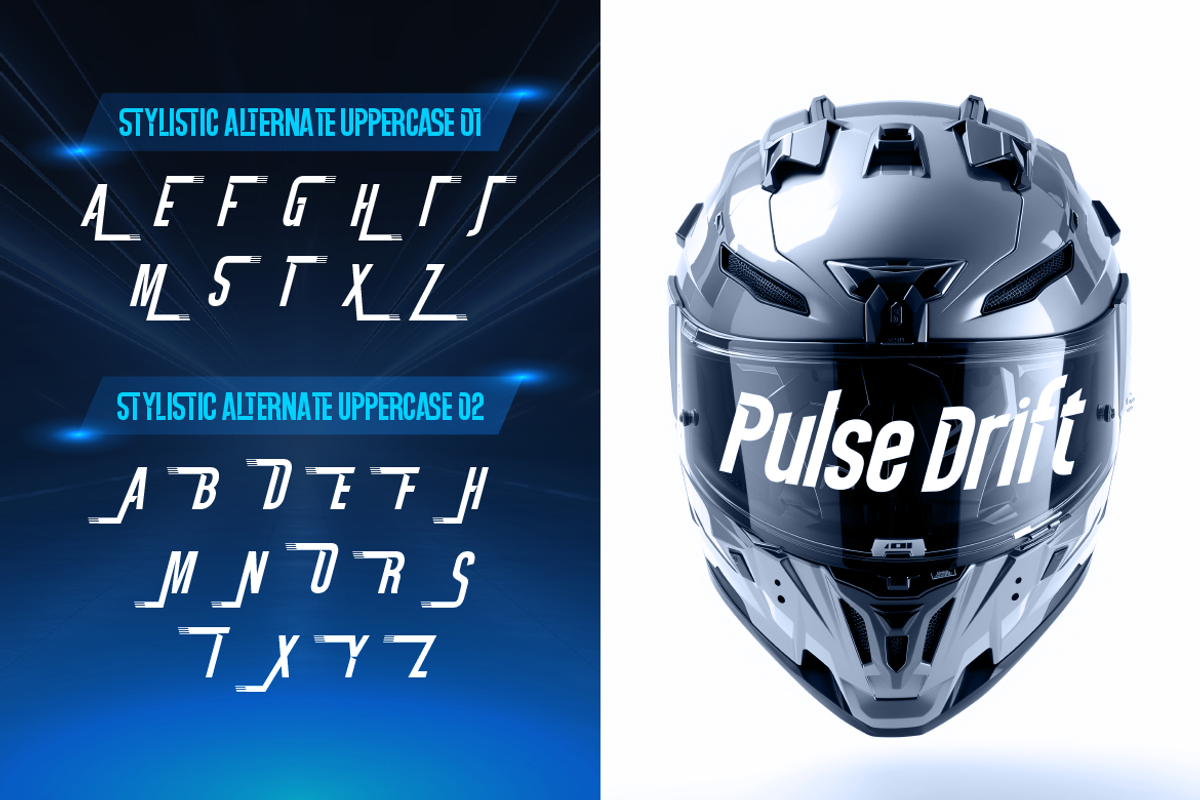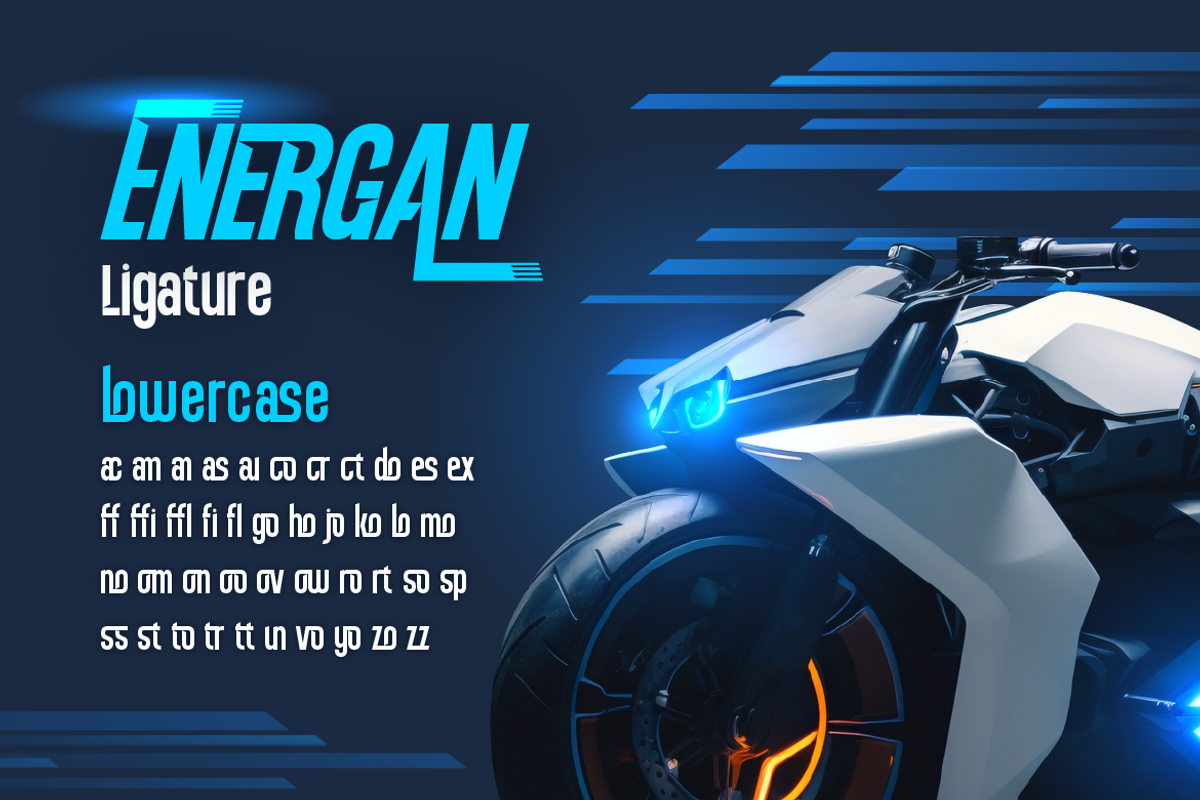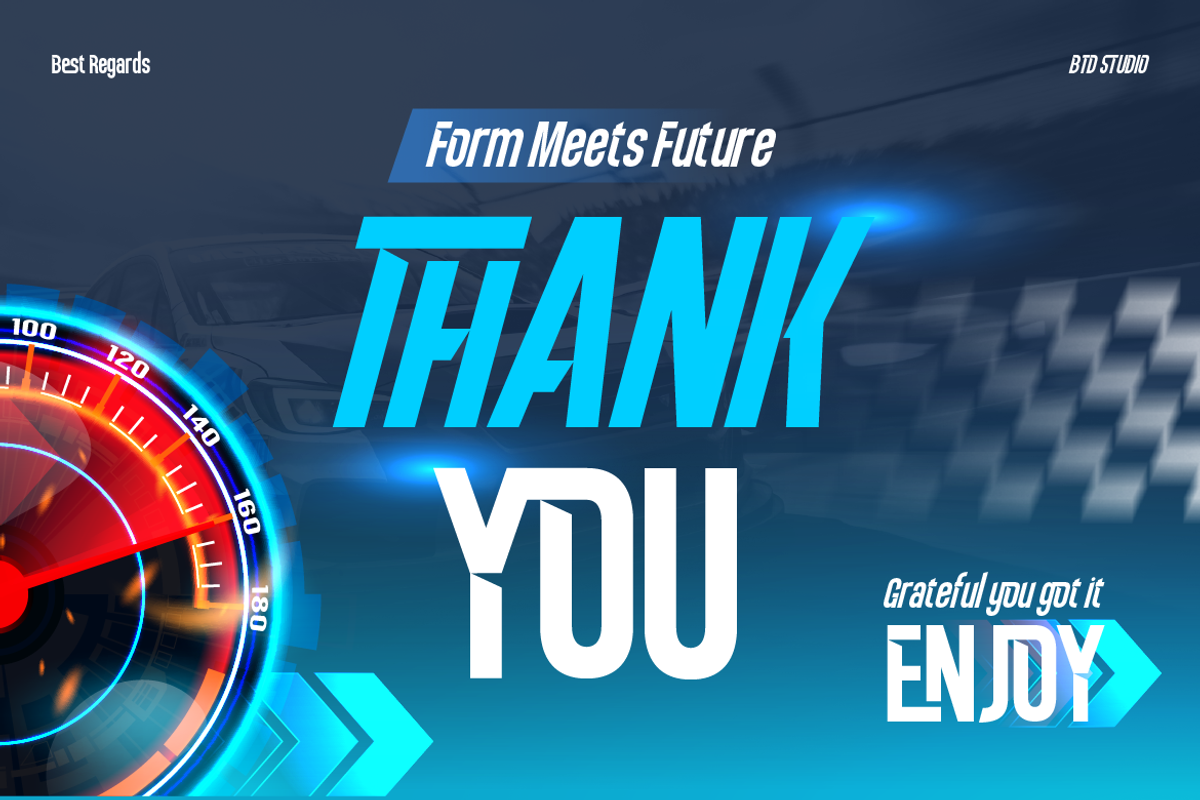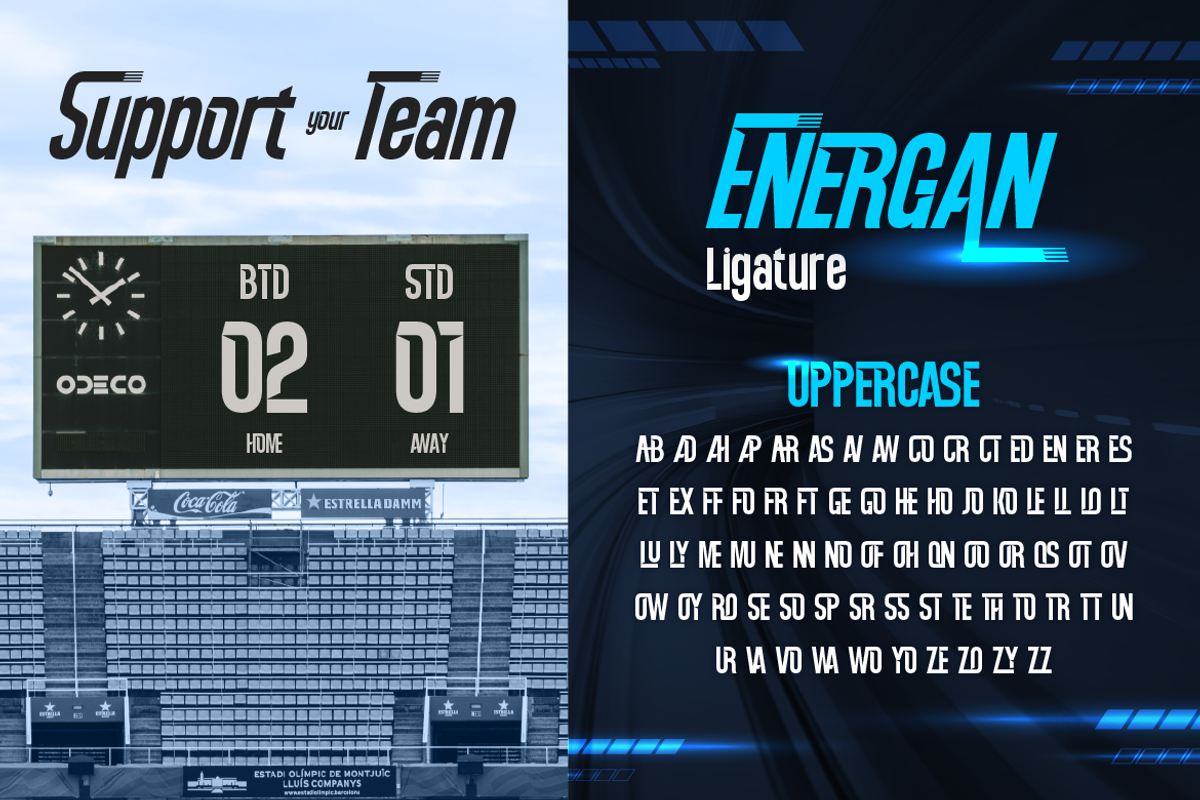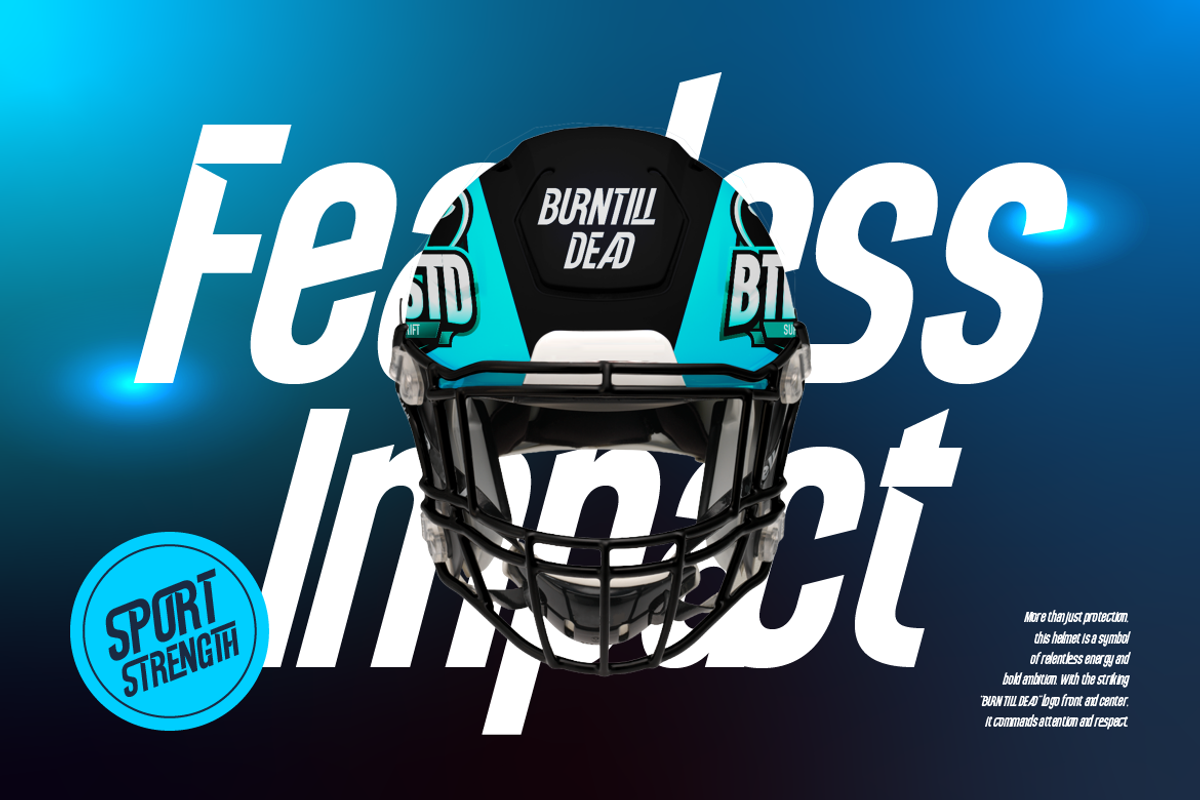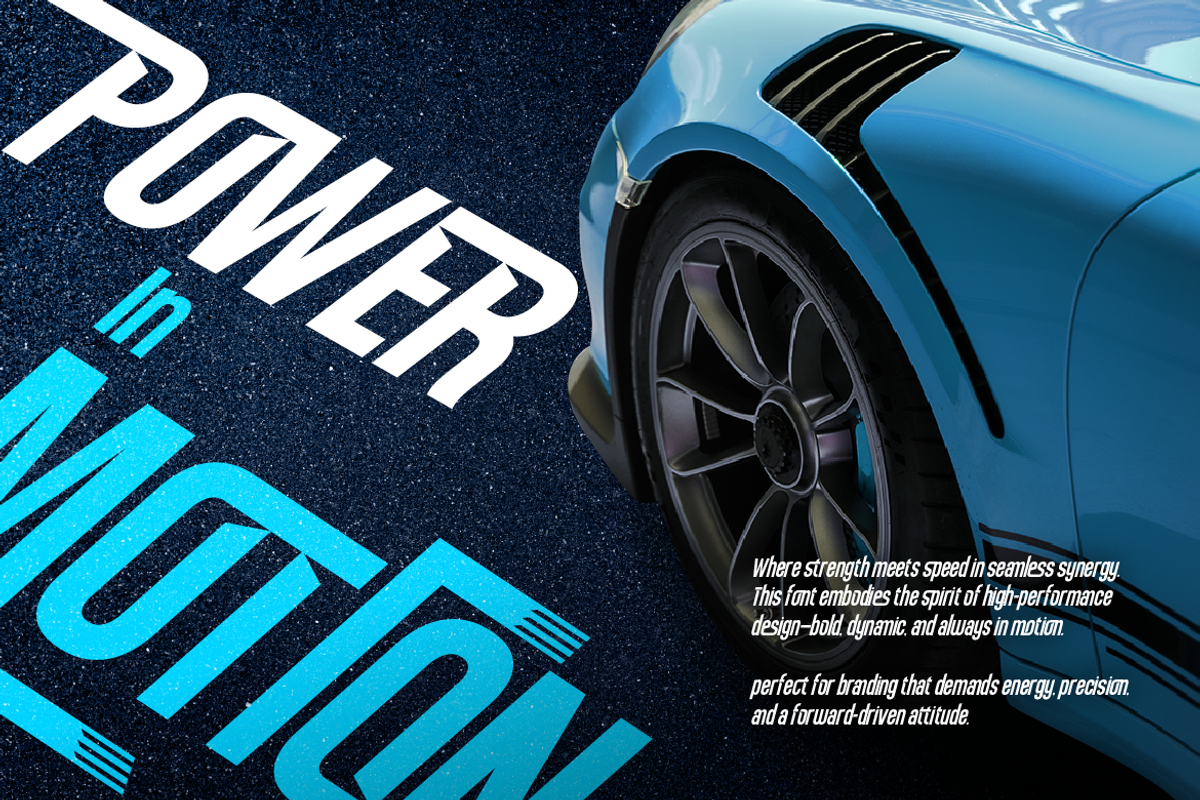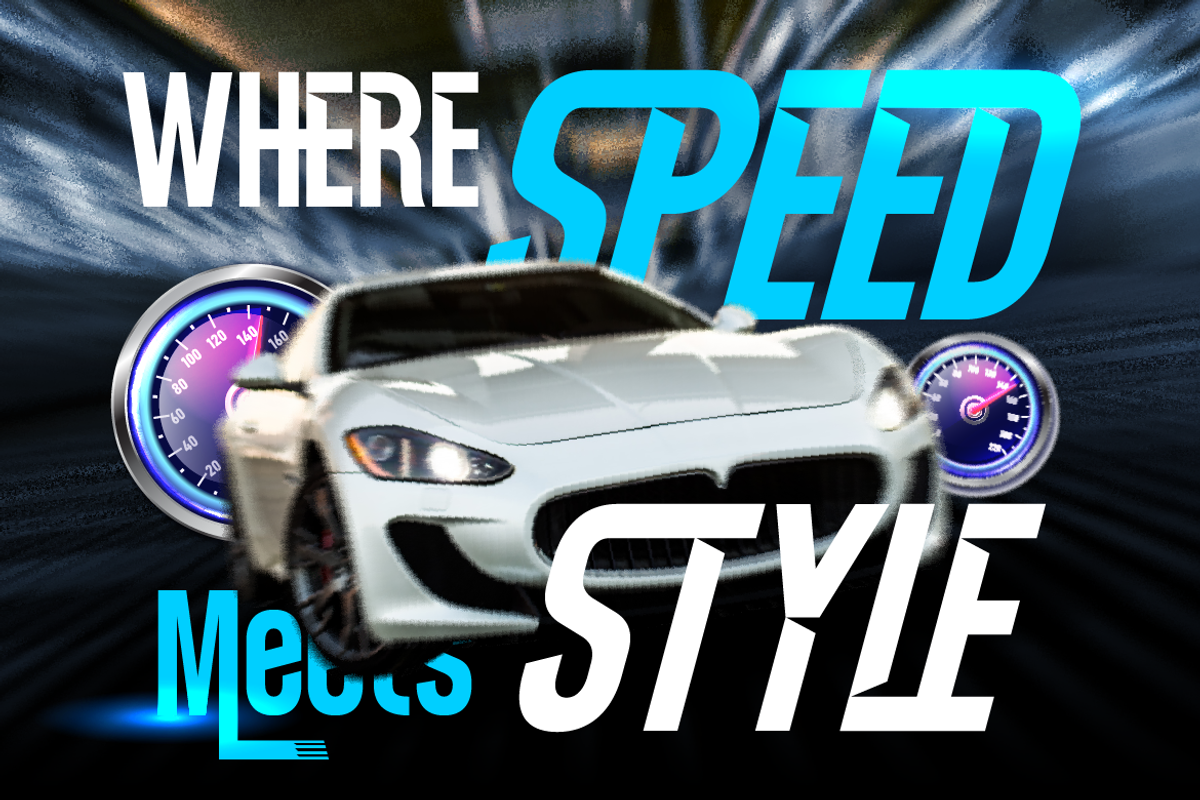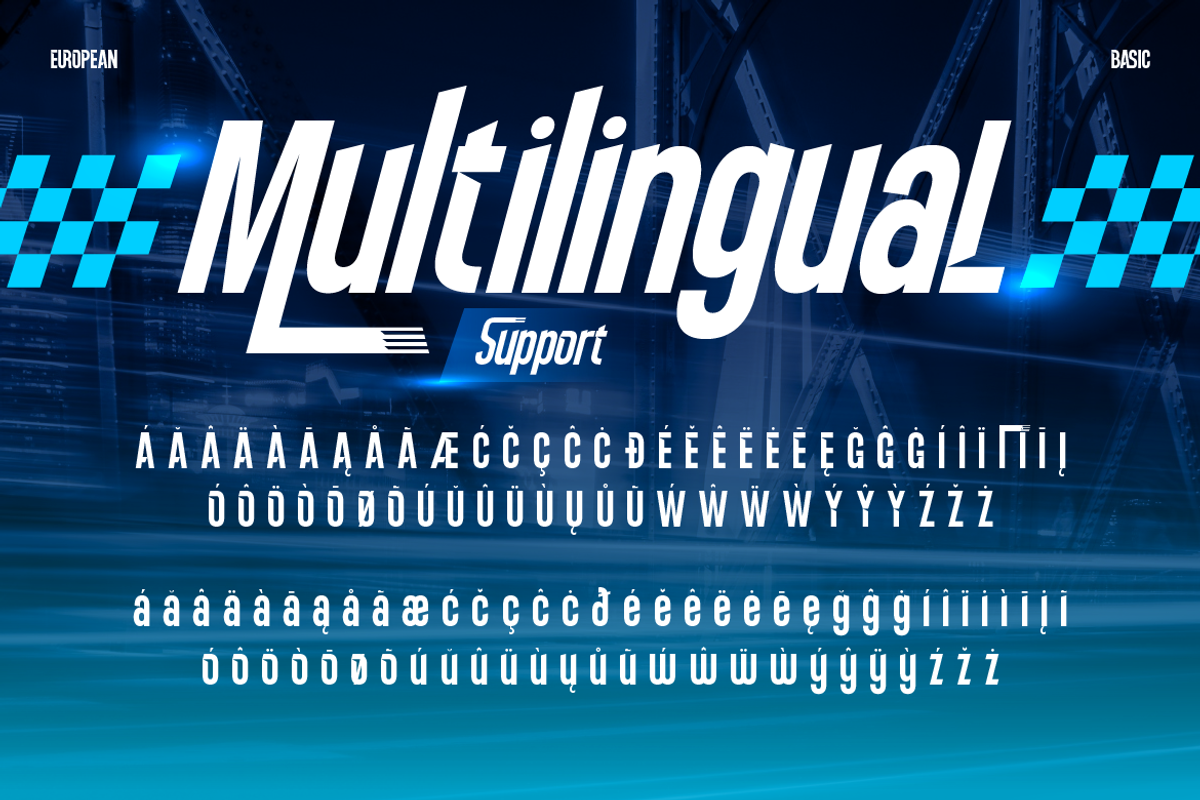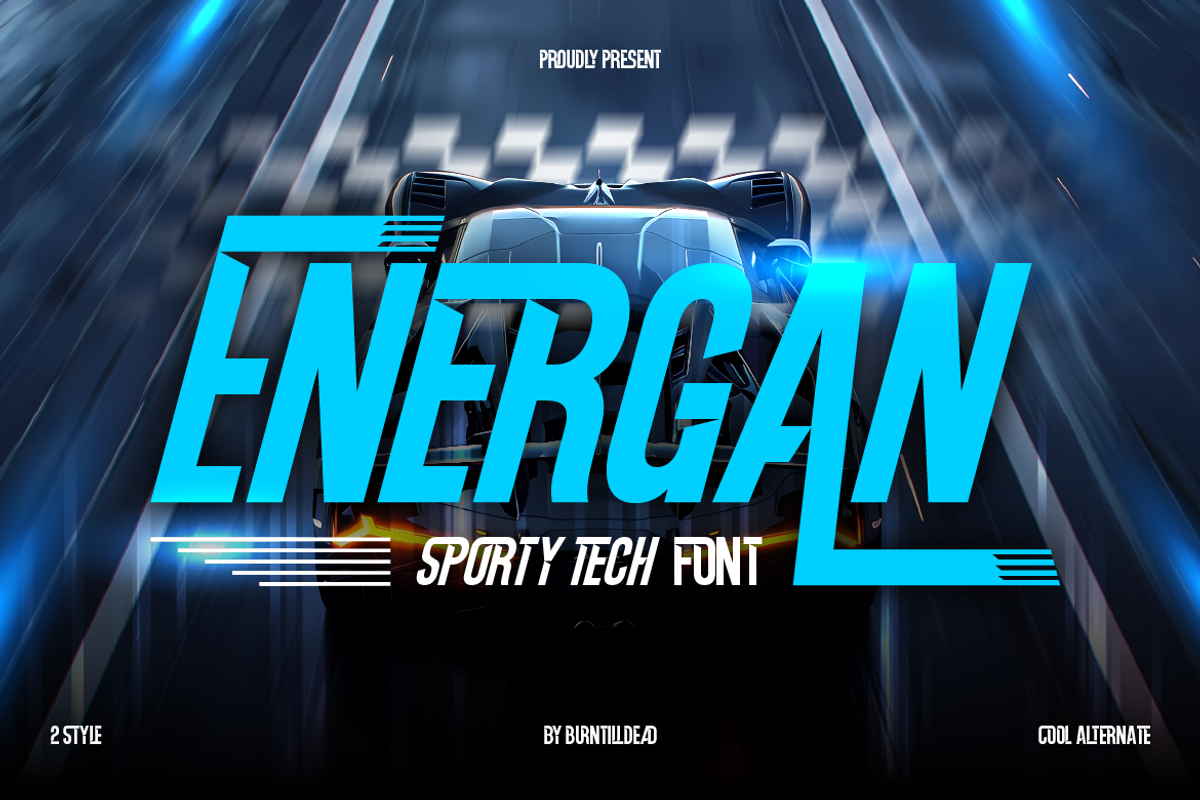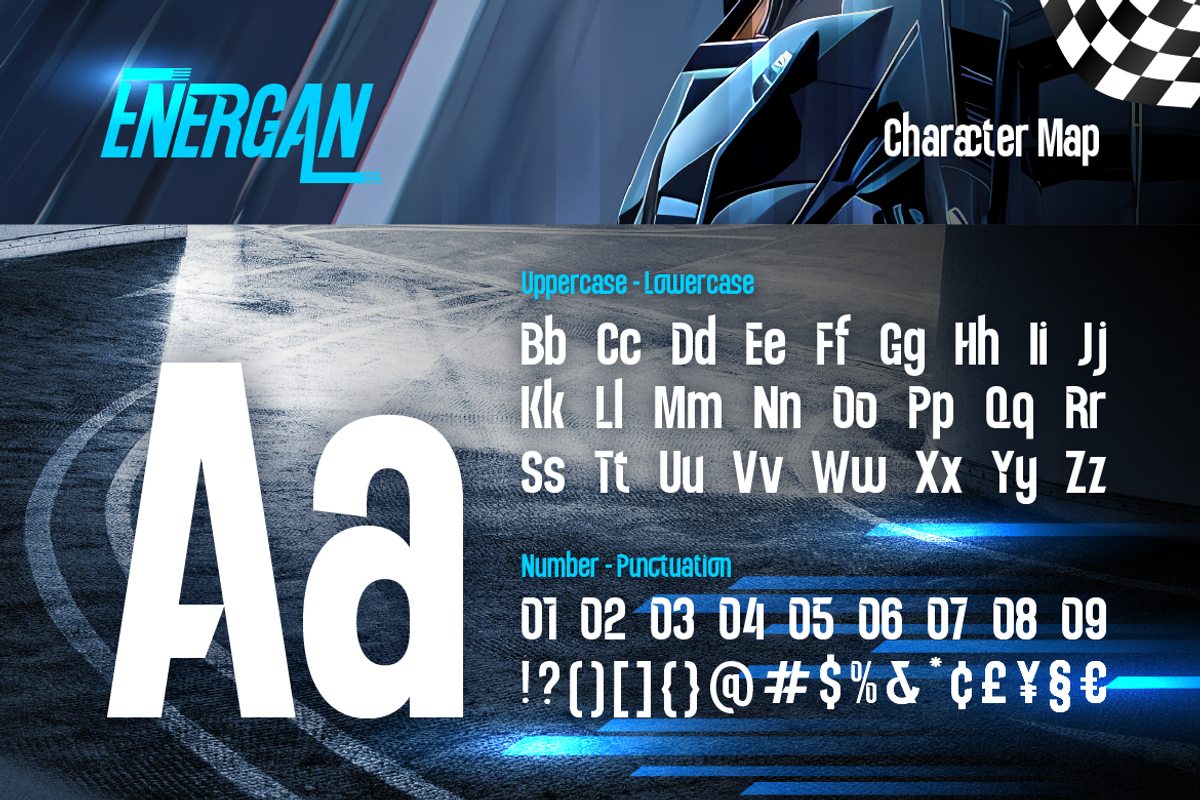
Energan
Introducing Energan, a condensed sporty tech font. Energan is a display typeface inspired by speed, precision, and futuristic energy. In today's world, technology moves as fast as a race car—and this font was designed to reflect that spirit. With sharp cuts and dynamic shapes, Energan brings out a sense of motion, power, and high performance. This condensed sans serif was created to give your design a strong, fast, and professional vibe. Whether you're working on a motorsport logo, automotive headline, racing flyer, gaming event poster, tech branding, or YouTube thumbnail, Energan delivers the adrenaline rush your visuals need. Bring high-speed energy to your next creative project with Energan—the ultimate choice for sporty and racing-inspired designs.